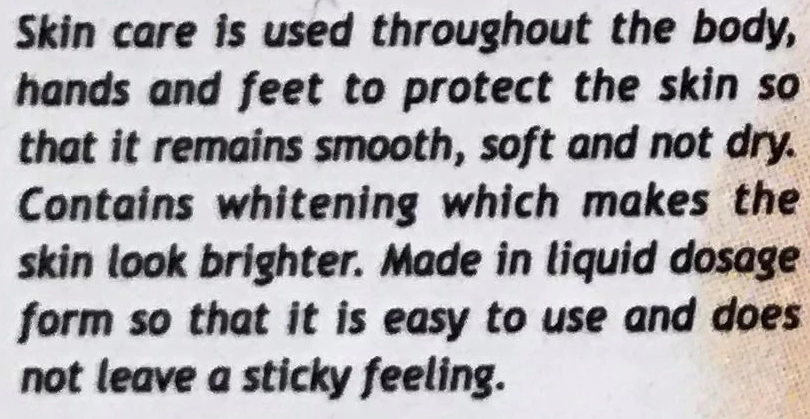
[HELP!!] looking for this fonts name...
Hello, could anyone help me to find this fonts name?? I've been looking everywhere but I can't find it, only the similar ones. My client want the exact same type of font, not the similar fonts. please help, i've been searching for 3 days, I've tried whatthe font, myfont, but no avail T_T
Which of those three different fonts are you asking about?  The first appears to be italic, which could make finding it a little tough unless you compare to the italic versions of other fonts.  The other two could be italic as well.
All those three. My client want me using this three type of different fonts, and she give me these examples.